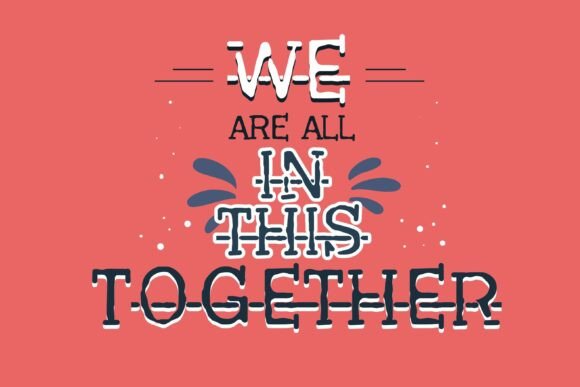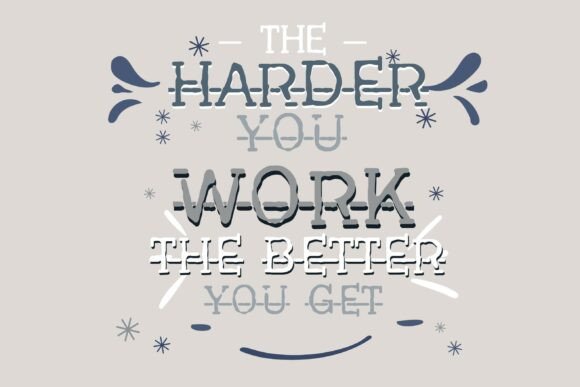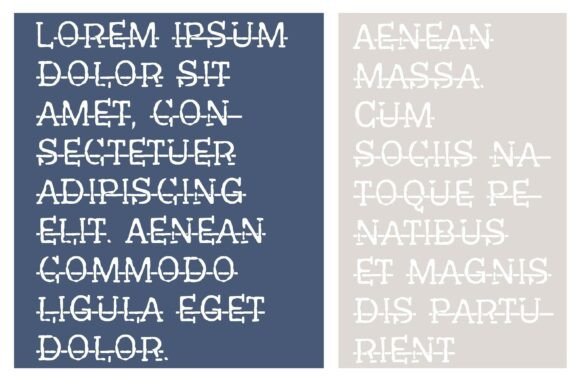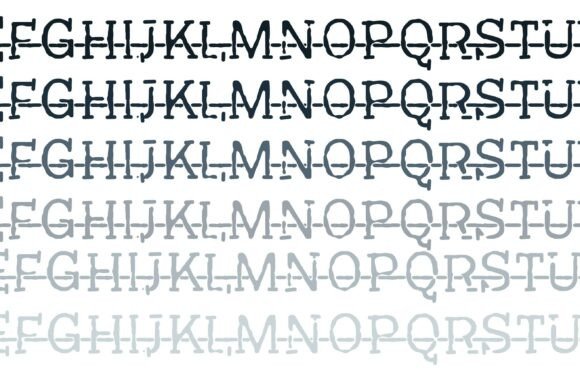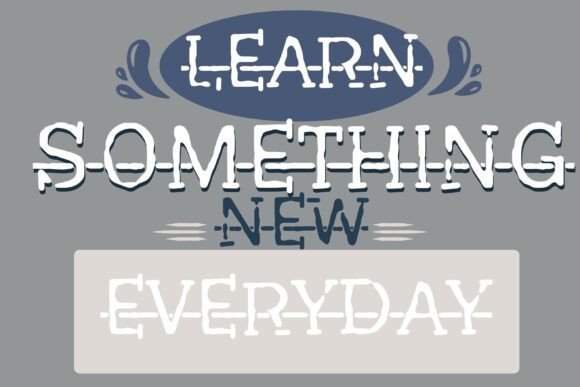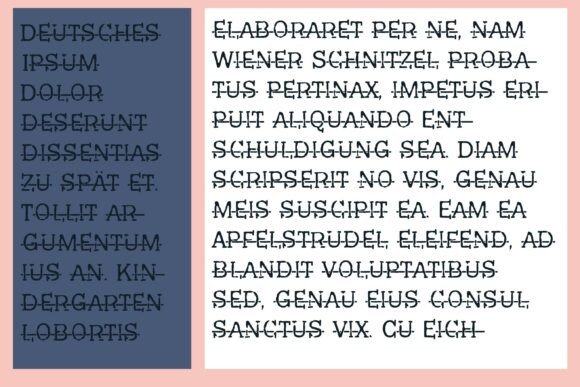
Cupid’s Love Font – Free Download
Introduction to Cupid’s Love Font
Aim for the heart of your audience with the Cupid’s Love font, a striking display typeface that literally pierces your message with romance.
This playful Cupid’s Love typeface features a unique horizontal arrow motif that connects your words, creating a cohesive and rhythmic visual flow perfect for Valentine’s Day banners, love letters, and romantic event headers Whether you are designing a gift tag for a significant other or a festive social media campaign, the Cupid’s Love font adds a playful, cupid-inspired touch that is impossible to miss.
Key Features of Cupid’s Love Font
Why Choose Cupid’s Love Font?